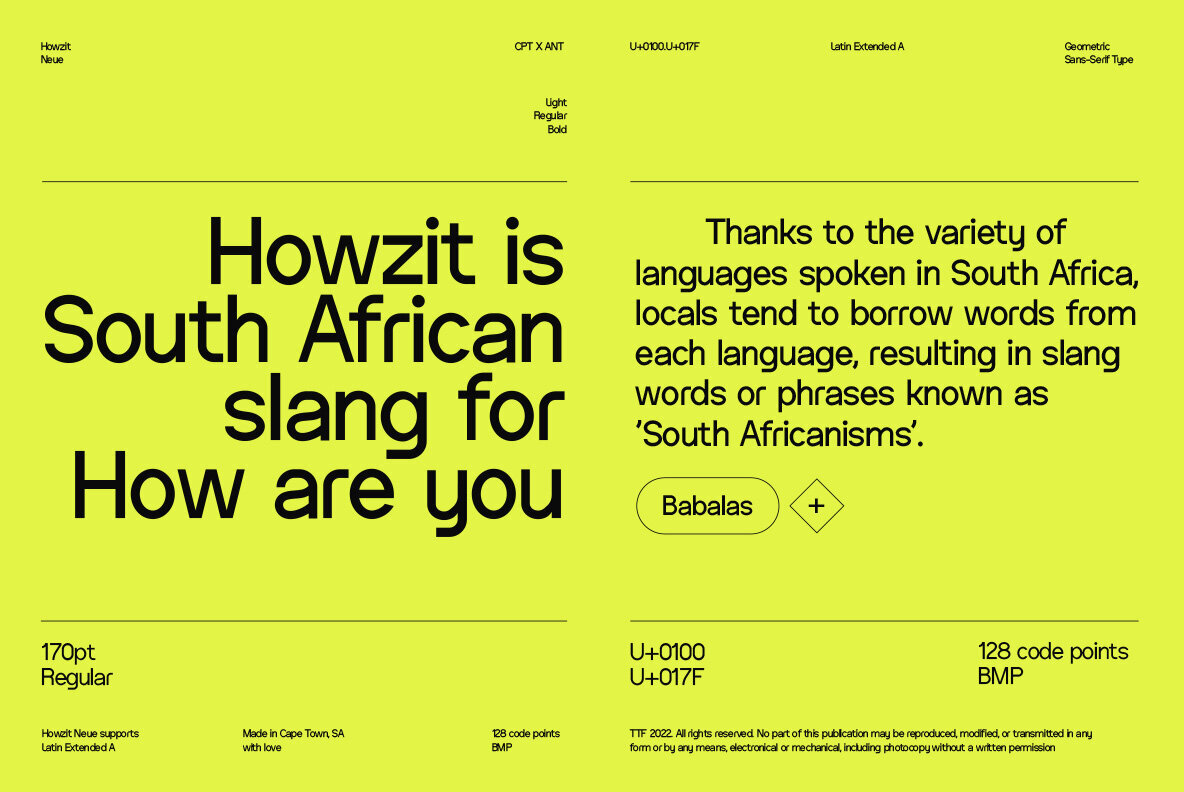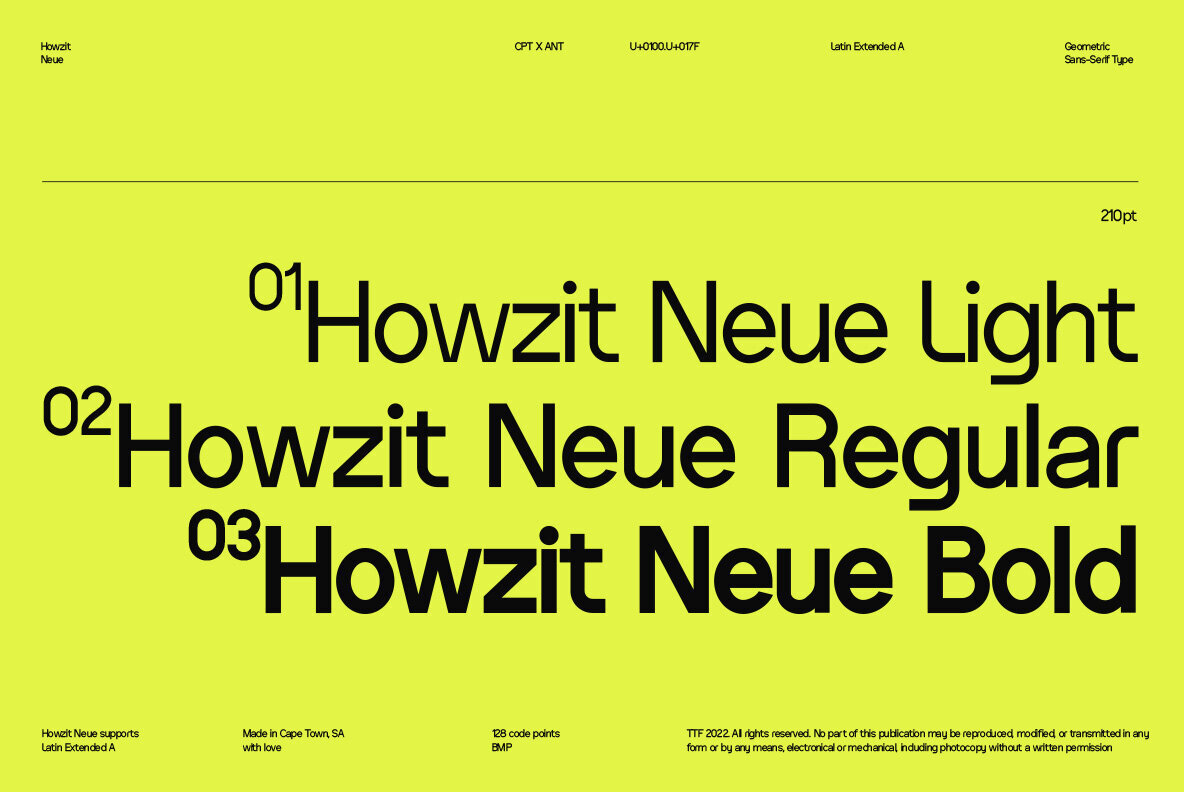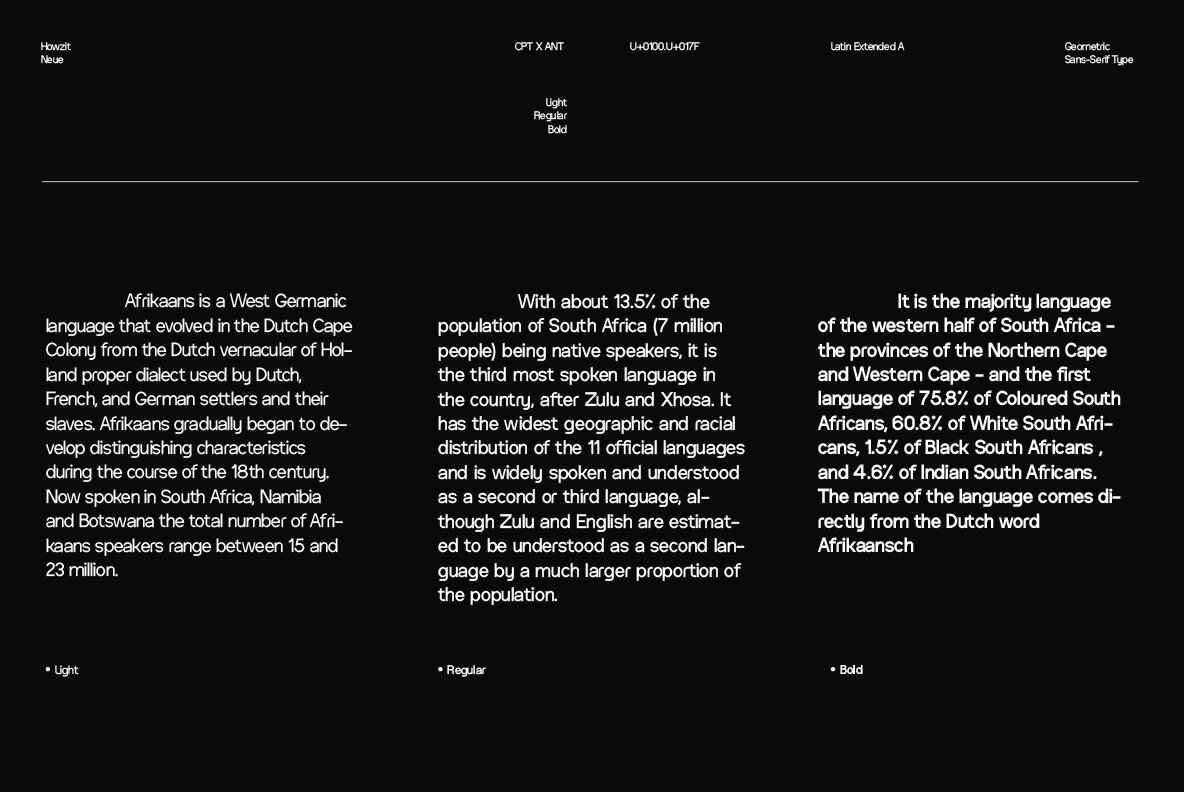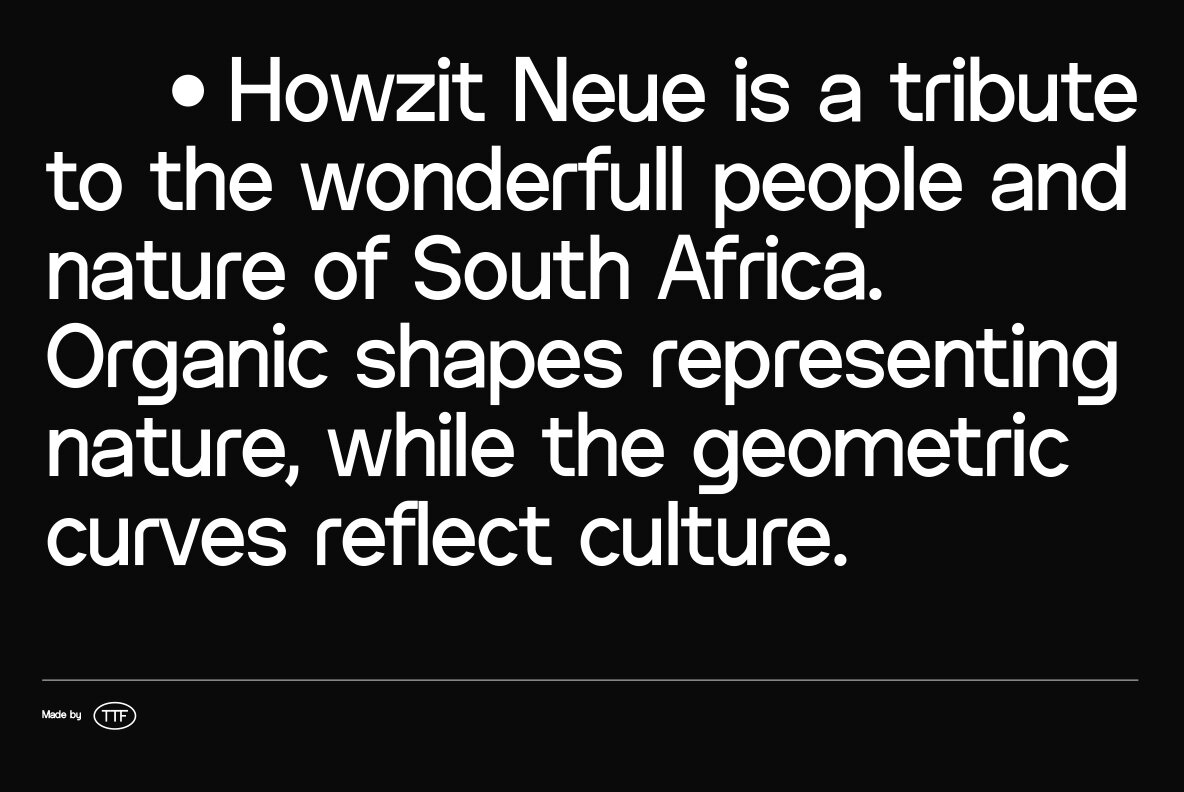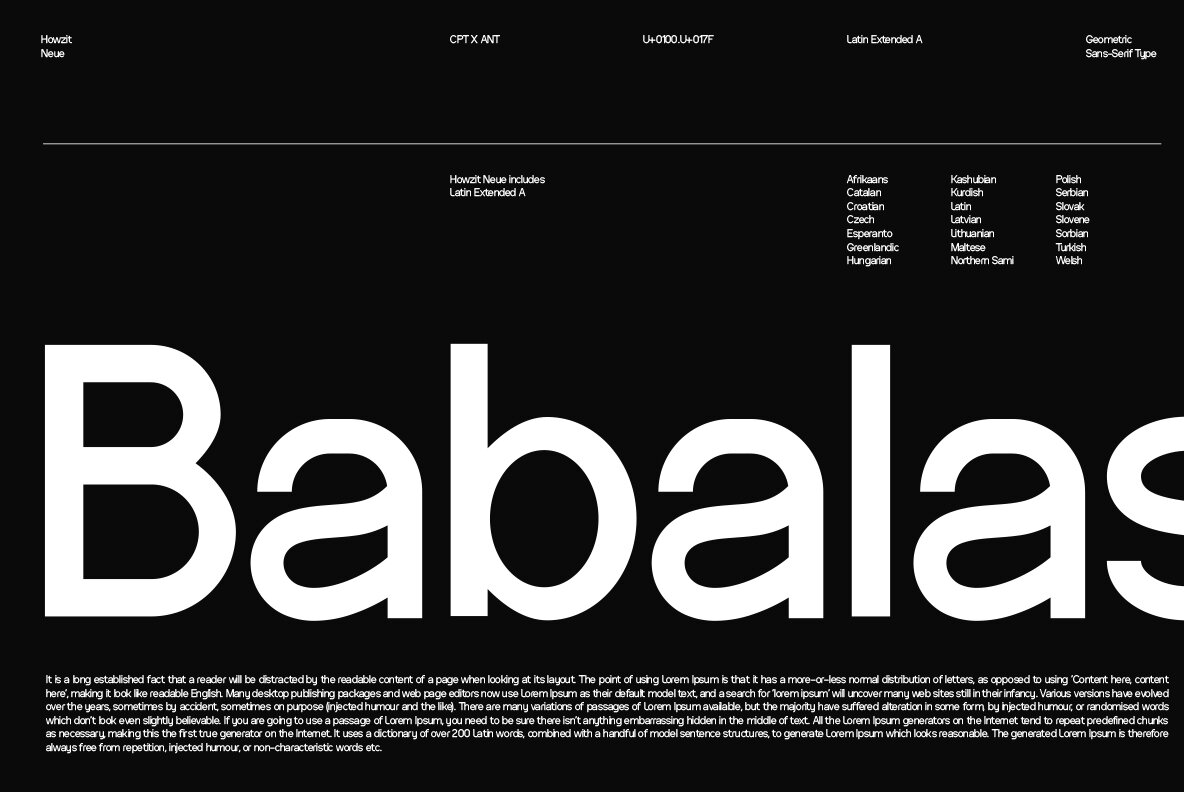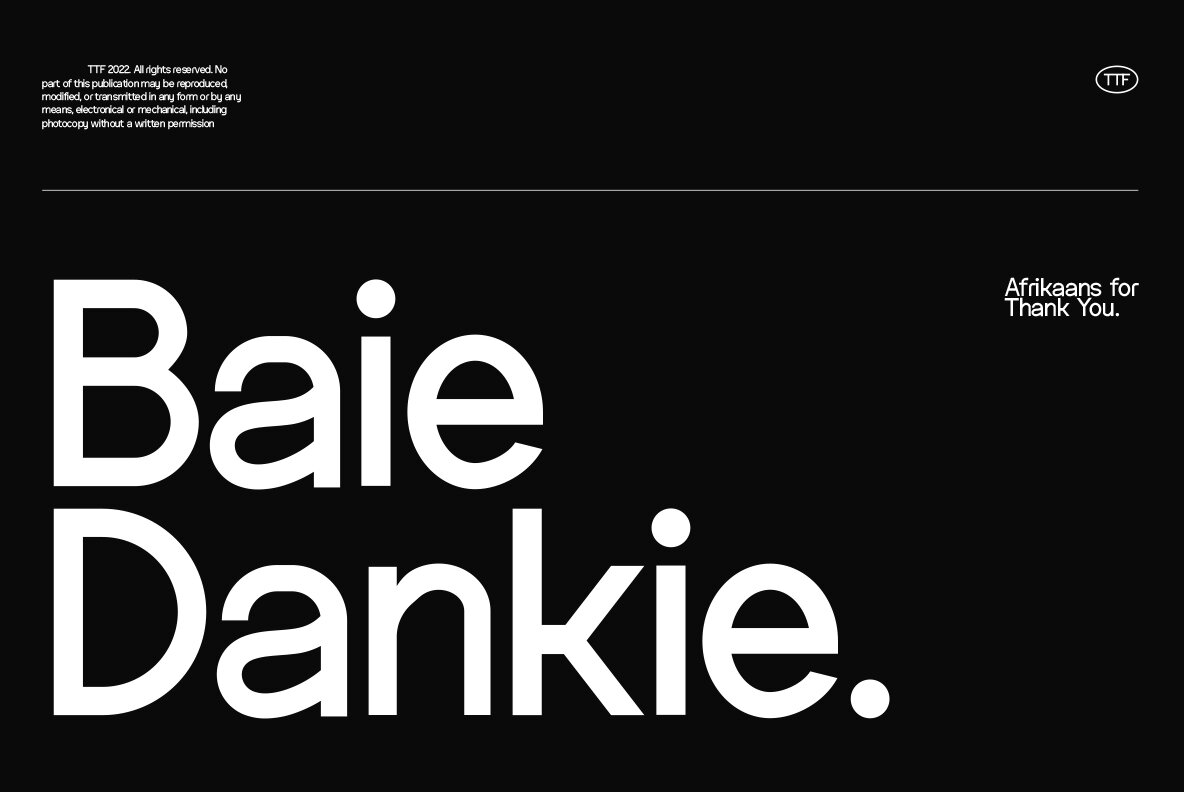
Howzit Neue Font
Introducing Howzit Neue, a geometric sans-serif typeface designed to cater to the needs of contemporary European language communication. It is a versatile choice for a range of design applications, offering three carefully crafted weights that allow for flexibility in visual tone and impact.Howzit Neue: A Versatile Geometric Sans-Serif